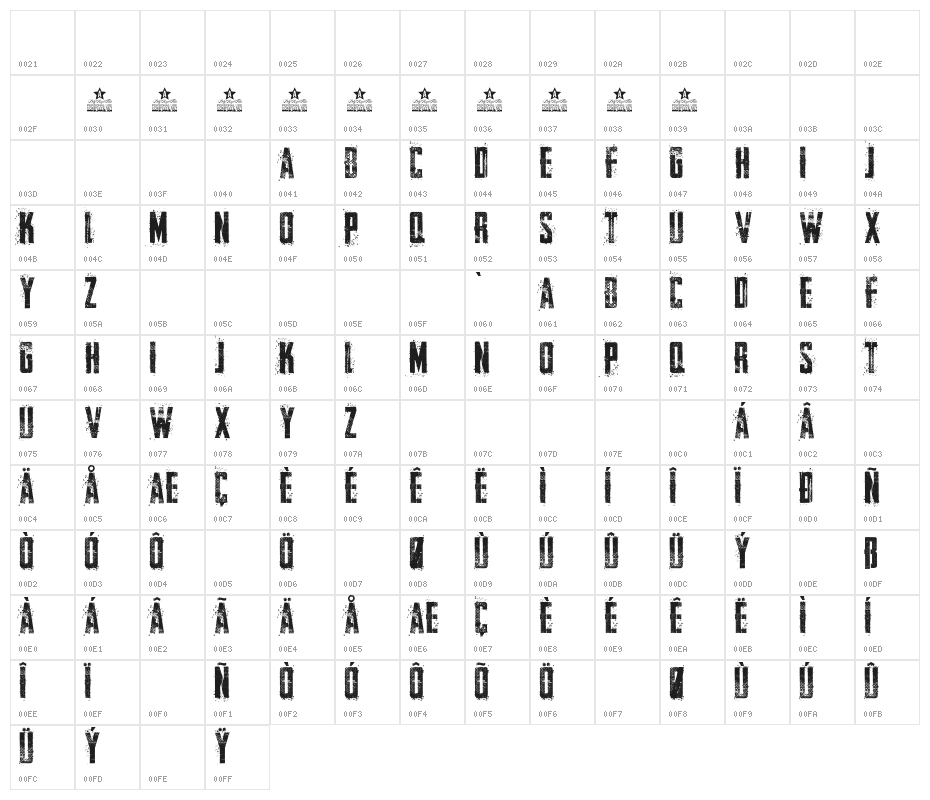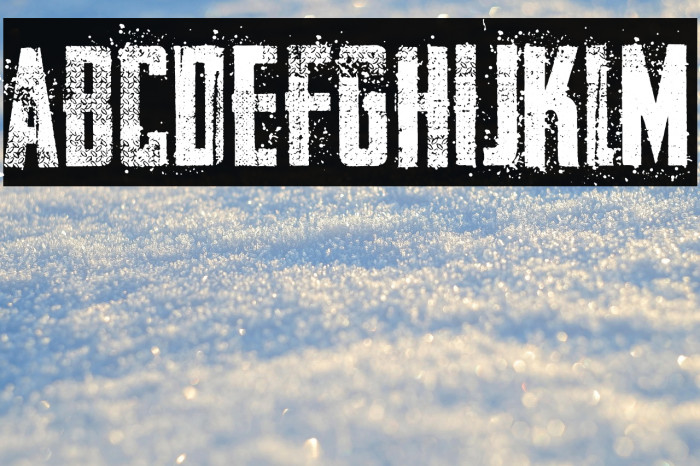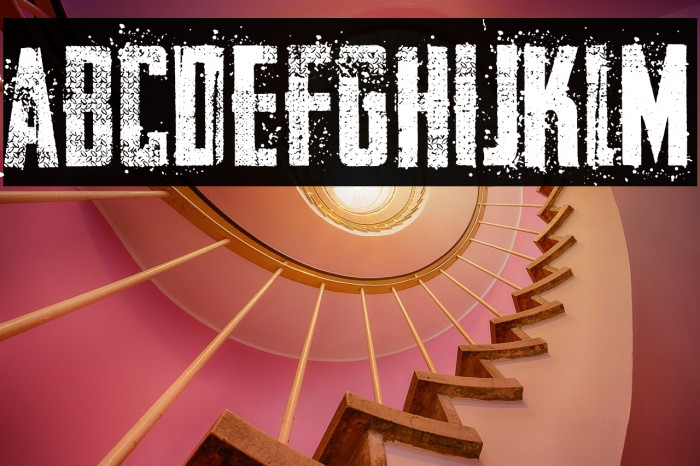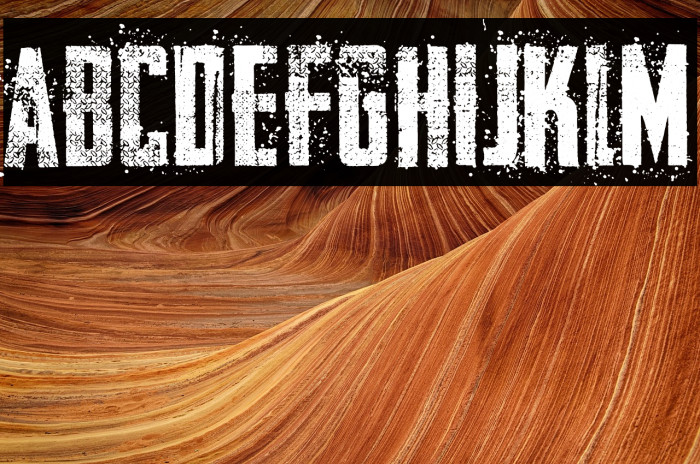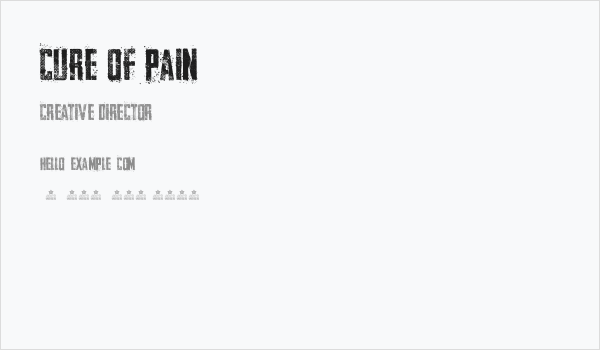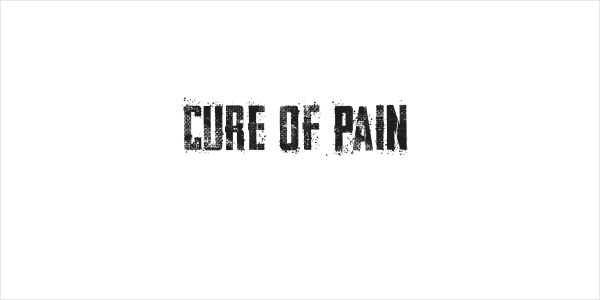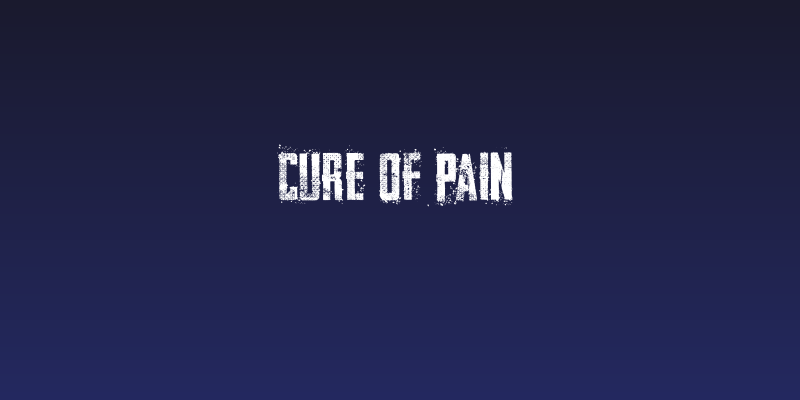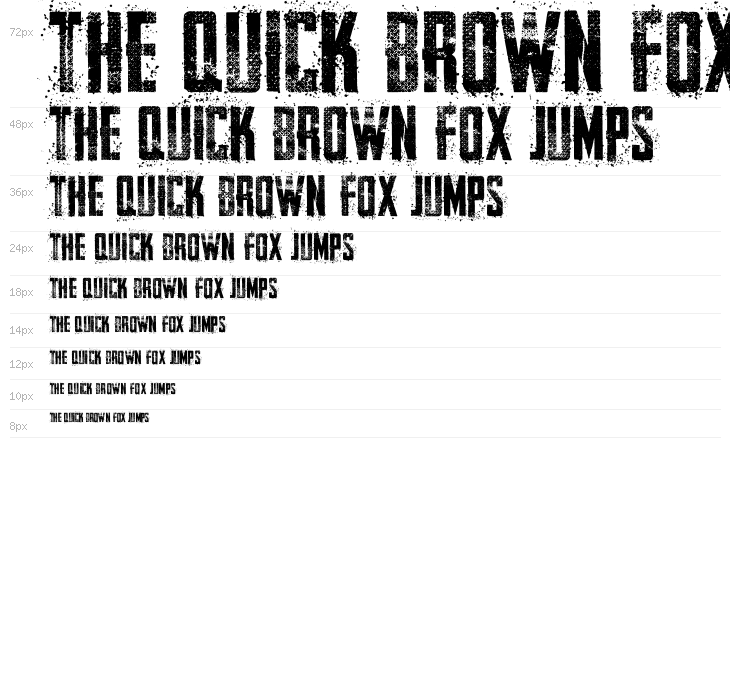
CURE OF PAIN Font
CURE OF PAIN Description
This font features a bold, distressed style with a gritty texture that gives it a rugged and worn appearance. The uppercase letters are uniformly bold, with sharp edges and a blocky structure that conveys strength and impact. The distressed effect is consistent across all characters, adding a sense of age and character. This font is ideal for projects that require a vintage or industrial feel, such as posters, album covers, or branding for edgy or alternative products. Its bold presence makes it suitable for headlines and titles, where it can stand out and grab attention.
| Proposed Projects | Posters, album covers, edgy branding, vintage-themed designs. |